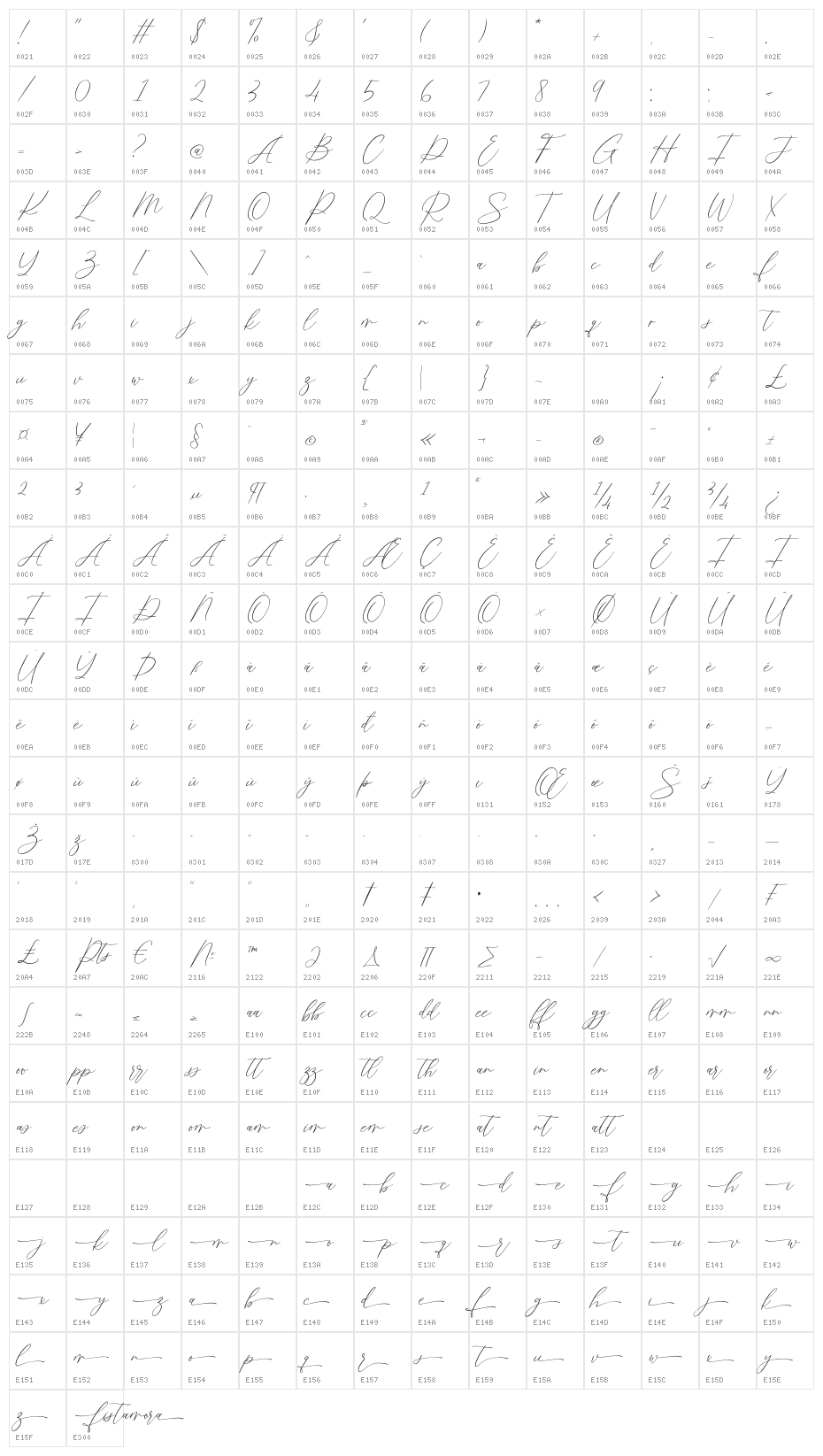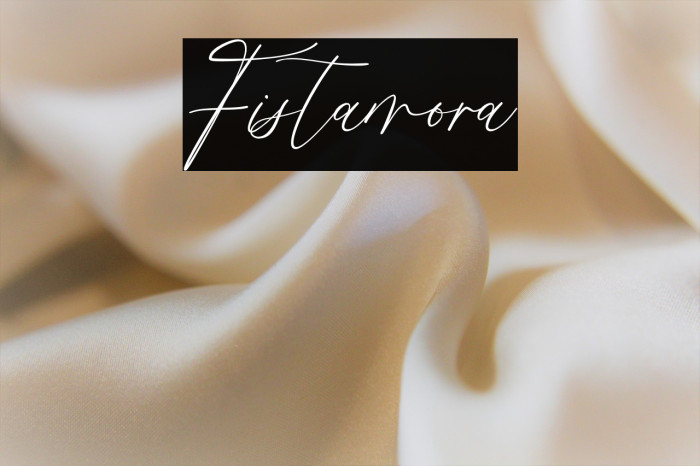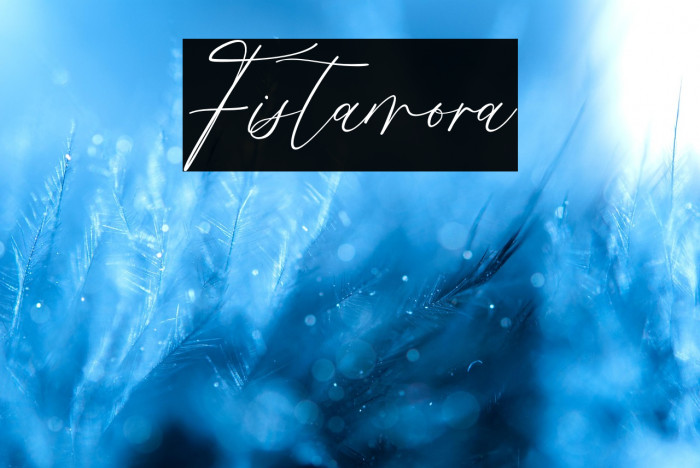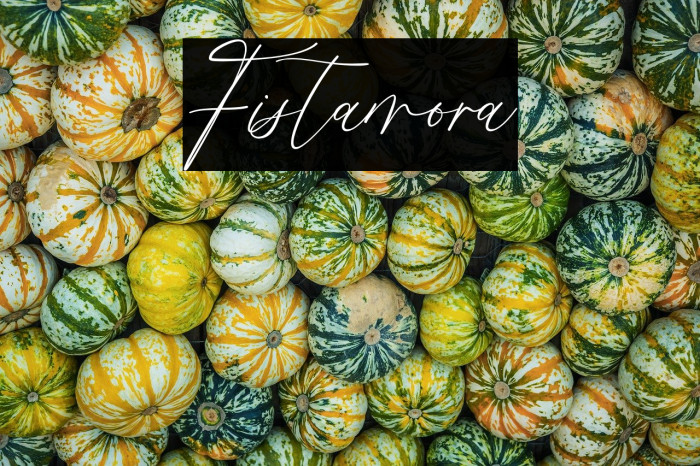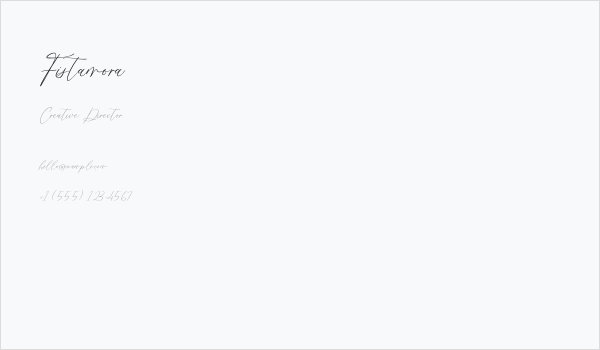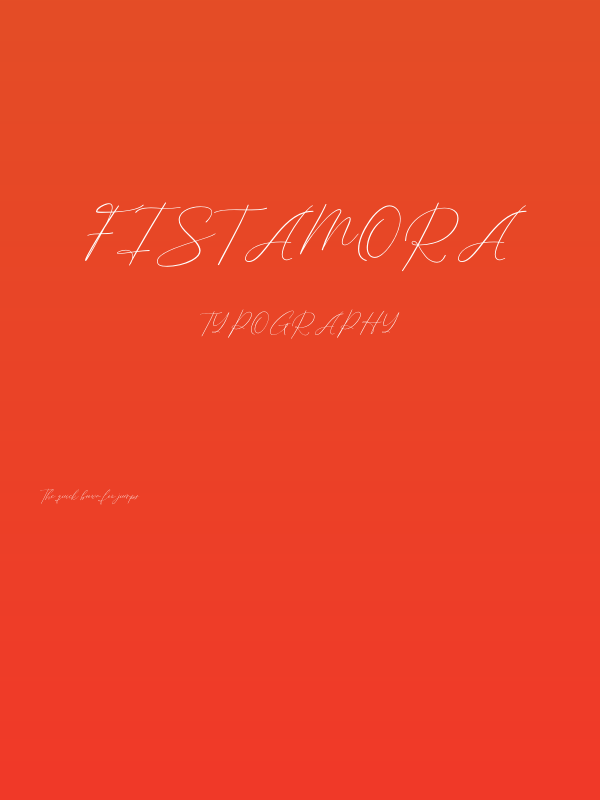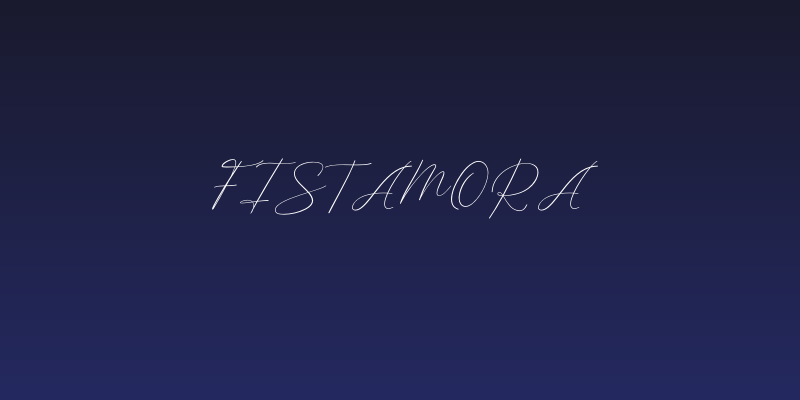
Fistamora Font
Fistamora Description
This elegant script font features a flowing, handwritten style with delicate, elongated strokes and graceful curves. The uppercase letters are tall and slightly slanted, giving a sense of sophistication and fluidity. The lowercase letters maintain a consistent rhythm, with smooth connections between characters, enhancing the cursive aesthetic. The numerals and special characters are designed to complement the overall style, maintaining the same elegant and airy feel. This font exudes a sense of refinement and is perfect for adding a personal touch to any design.
| Use Case | Logos, Invitations, Personal stationery |
| Proposed Projects | Ideal for wedding invitations, elegant branding, personal stationery, and romantic quotes. |